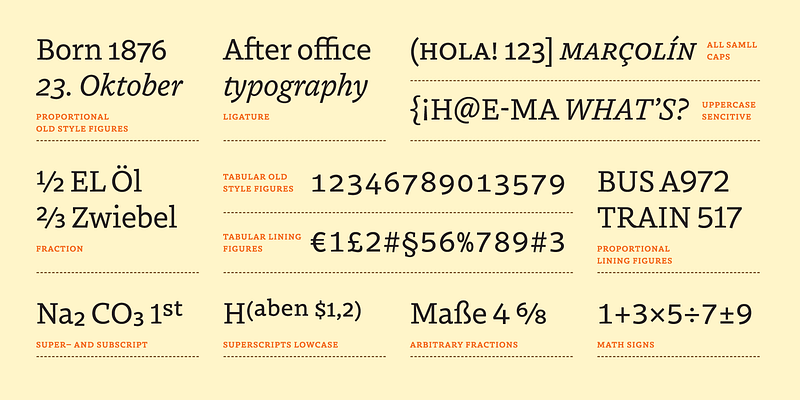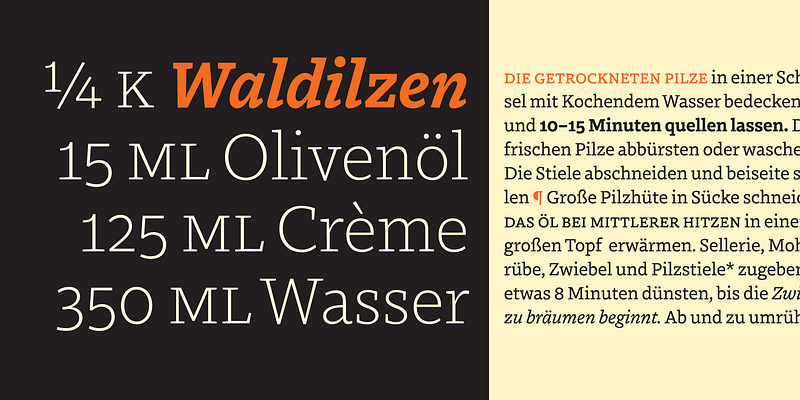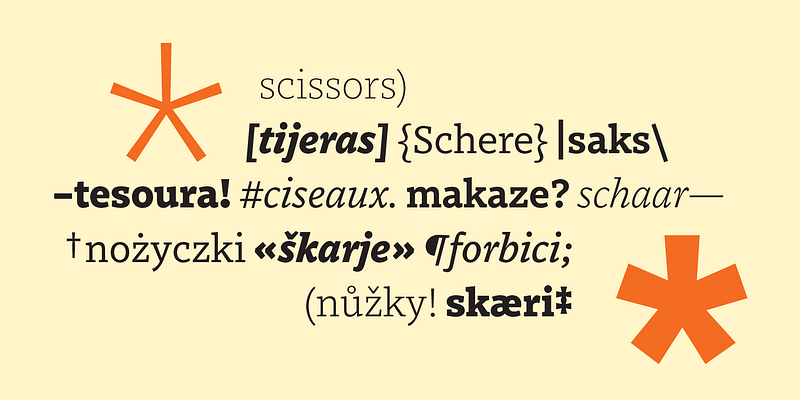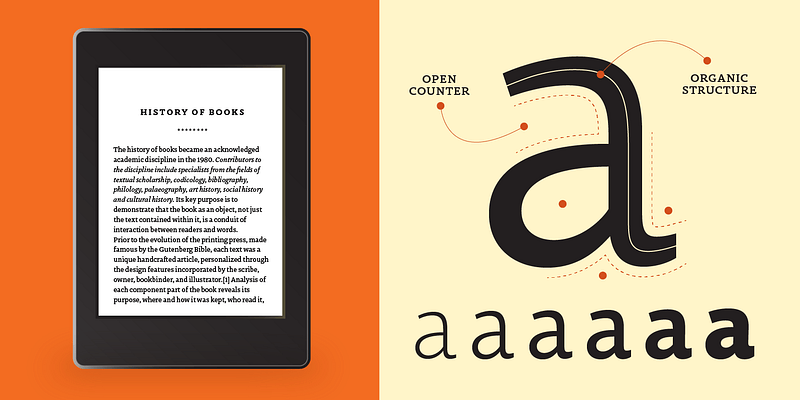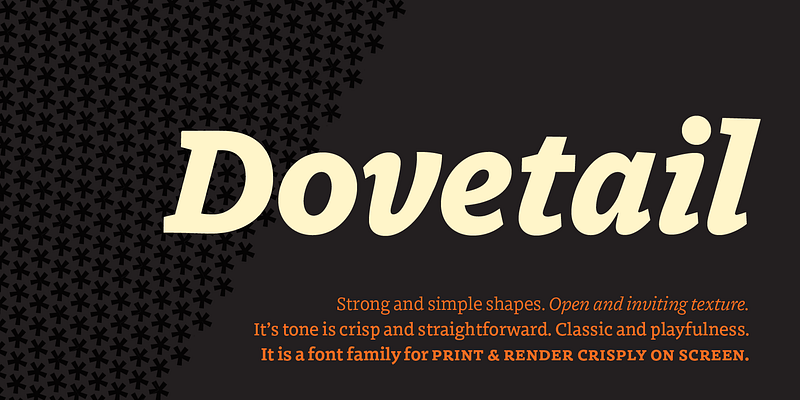
MVB Dovetail is an editorially focused text serif designed by David Sudweeks. The working idea for the typeface came from a design school letter-making exercise: Take a pair of scissors and a few large sheets of paper, and start cutting. The resulting letters and the action itself of cutting them out of paper informed the type design process, producing strong, simple shapes and an open, inviting texture. Dovetail’s tone is crisp and straightforward. Its classic letterforms, set off with a touch of playfulness, give the design both a practical and spontaneous personality. The text weights capably set copy at a variety of sizes for print and render crisply on screen. Its lightest and heaviest weights perform best at display sizes. Care has been taken to save the typographer’s time with OpenType features including contextual punctuation and symbols to fit mixed-case, small-caps, and all-caps settings, as well as figure sets tuned to each use.